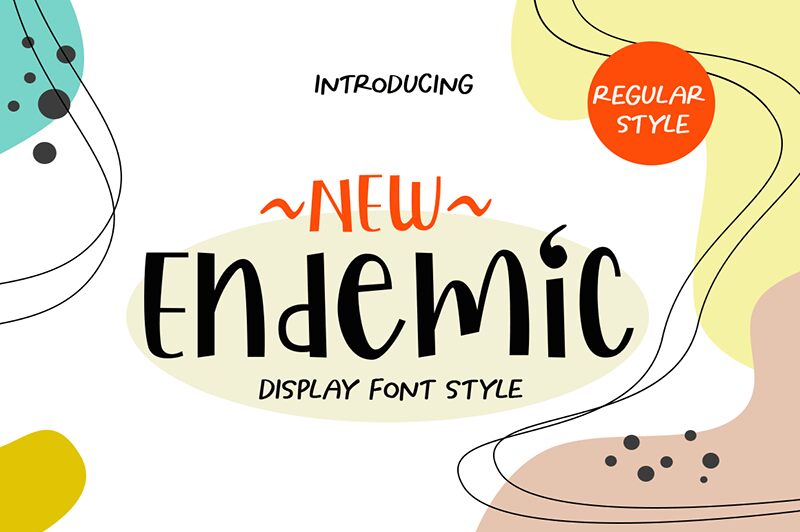
New Endemic (Demo)
New Endemic font by Wildan Type is a retro-inspired modern display font with casual elegance, artistic flair, and incredible versatility. This friendly impression typeface is an excellent visual option for expressive work. Both its strength and charm are easy to notice, especially when compared with ordinary fonts. A true artistic character of originality is what makes New Endemic stand out.
Use this free display font for advertising designs where you want ultimate attention. Though suitable for vintage projects, a modern application of New Endemic can help strengthen your creativity in logo designs, packaging boxes, product labels, editorial layouts, business cards designs invoice notes and so much more.